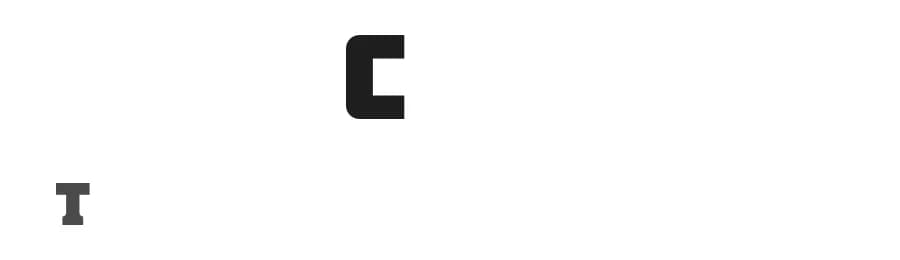
About Coyote Font
Coyote is a sans-serif typeface from Naan Type Studio. Available as a free download from this page with license terms shown on the page, it contains 110 glyphs for straightforward typographic work. The regular weight operates with consistent functionality across both display and text settings where reliable legibility is essential.
Designers frequently encounter projects requiring a no-frills sans-serif built for practical applications where clarity takes precedence over visual personality. Coyote serves these roles well: web interfaces and mobile app labels where scanning speed and space efficiency matter most, printed signage and posters with concise messaging, document templates for business communications and administrative forms, and simple branding work that prioritizes legibility over ornamental elements. Its character set focuses on essentials, eliminating decorative flourishes that might distract from the core message. This restraint makes Coyote dependable across many varied contexts where the typeface should support communication without competing with or distracting from content.
Choose Coyote when your design demands functional, transparent typography over visual impact and distinctive personality. Compared to more specialized typefaces engineered for particular moods or optical compensation for specific sizes, a clean, understated sans-serif remains the stronger choice for projects where dependability and legible communication outweigh aesthetic innovation or distinctive character.
Coyote Font is a versatile sans-serif font that works for both headings and body text. Pair it with a contrasting serif or slab serif font to add visual interest and a clear distinction between titles and body copy.